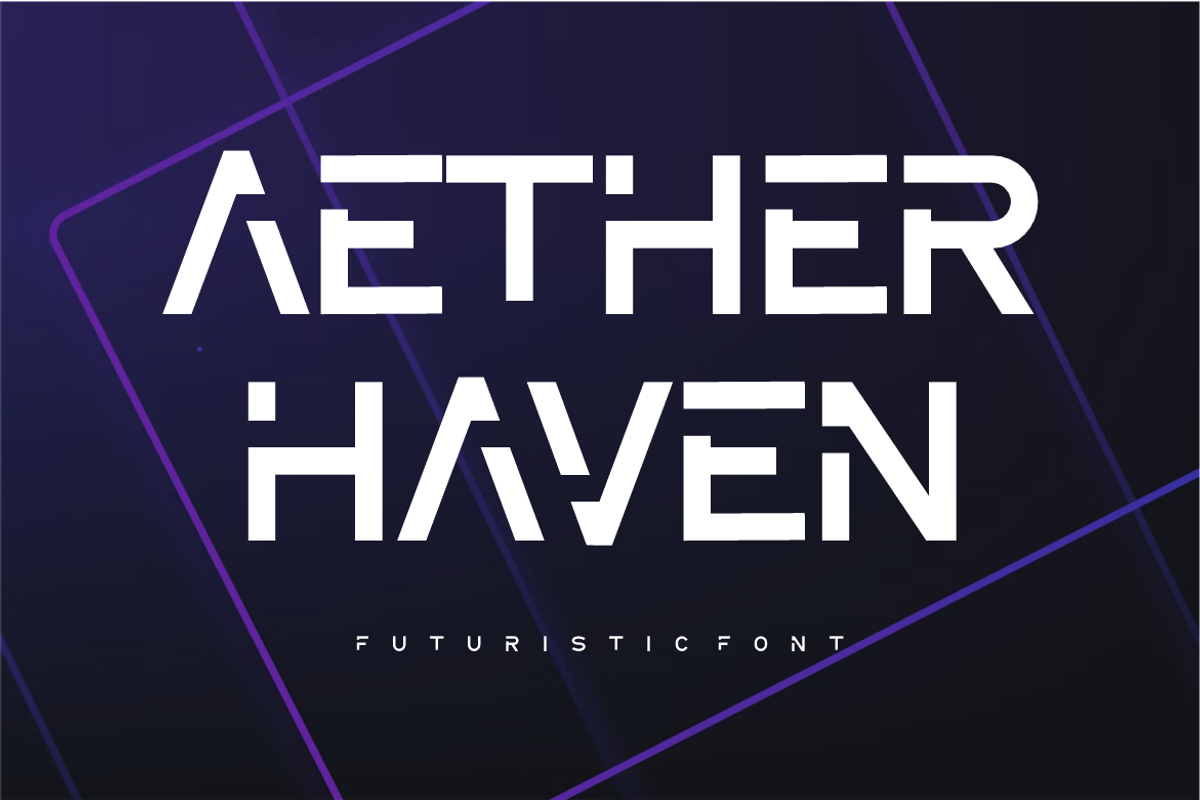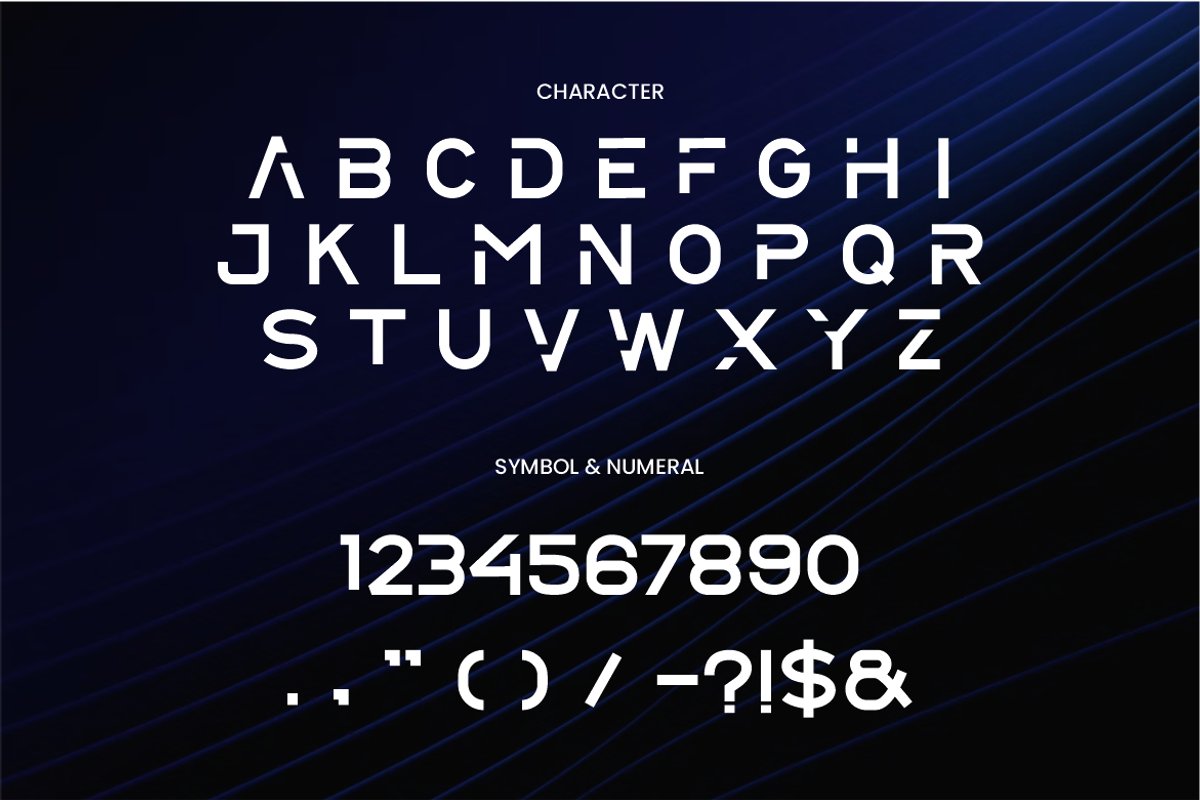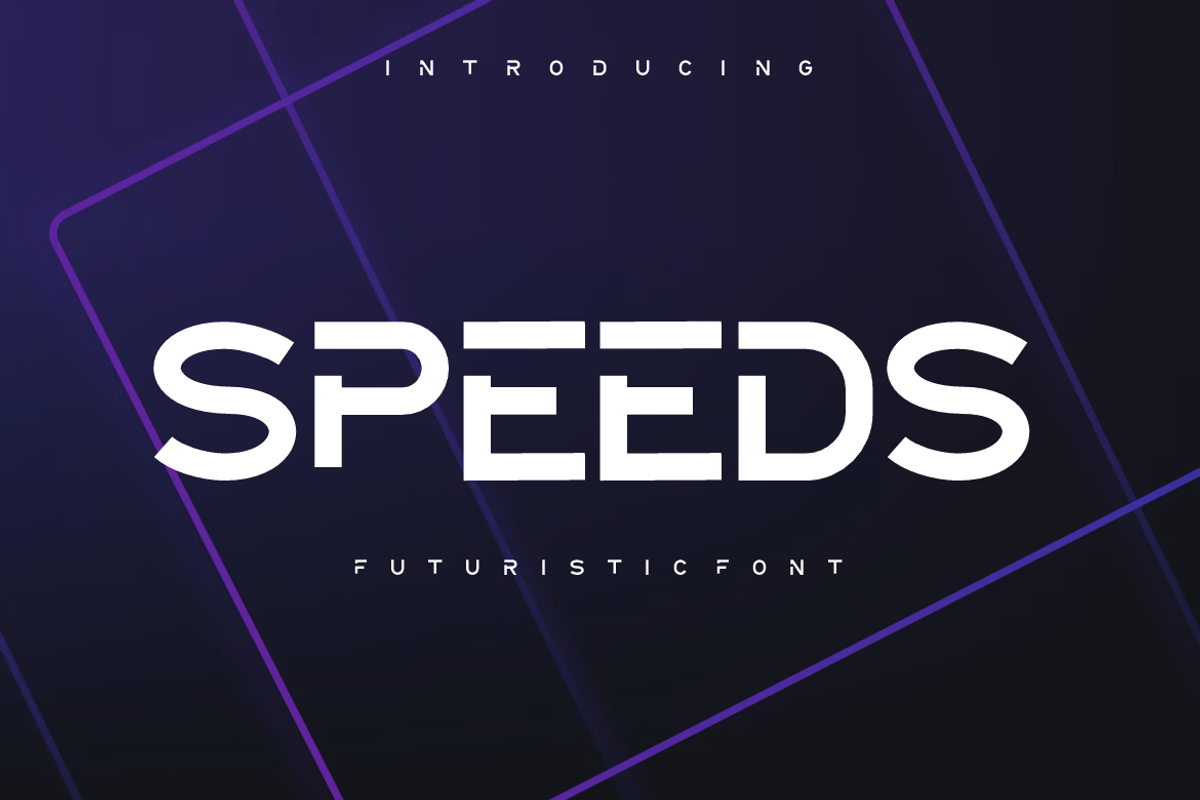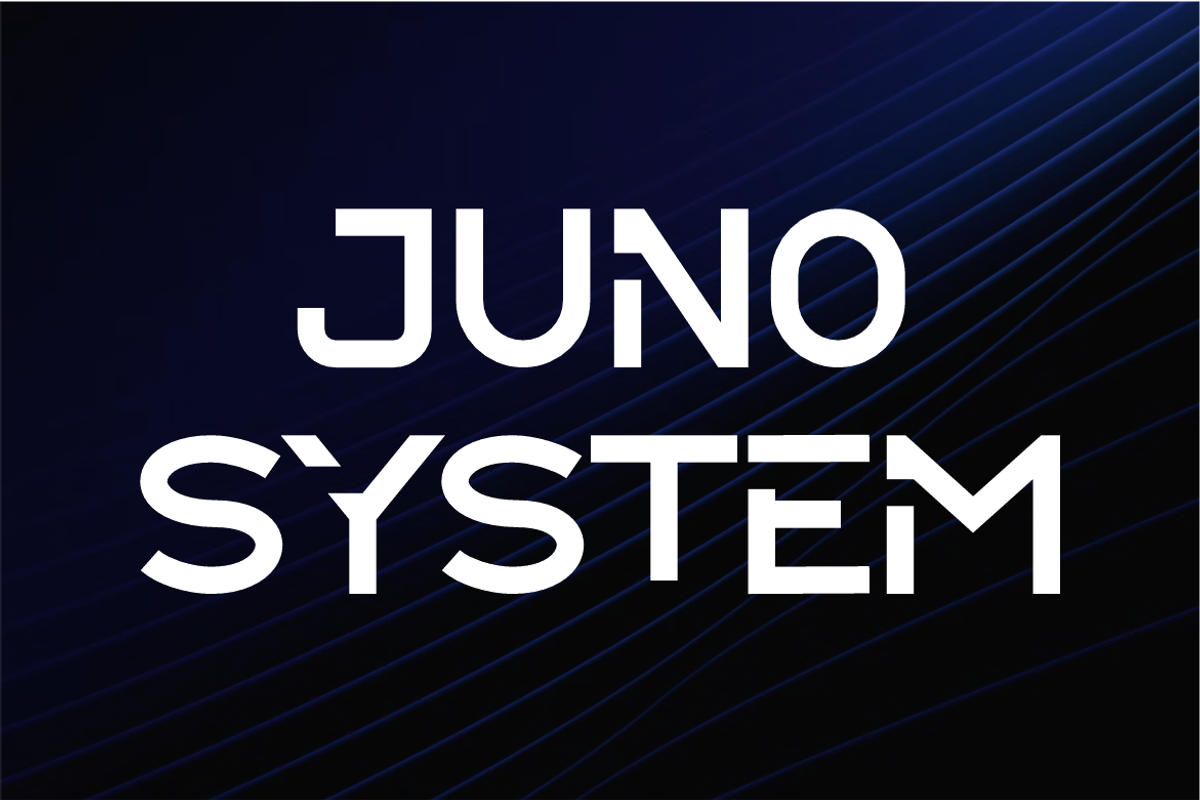
Speeds
🚀 Font Description: SPEEDS This typeface, named SPEEDS, is prominently labeled as a "Futuristic Font". It embodies a modern, high-tech, and dynamic aesthetic, making it ideal for projects related to technology, racing, gaming, and cutting-edge design.